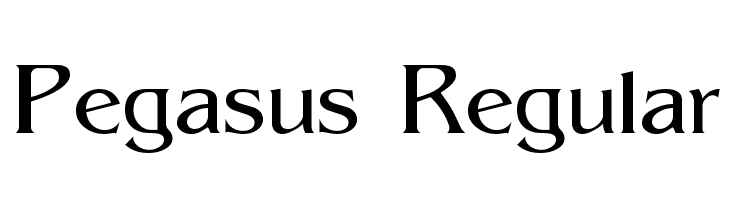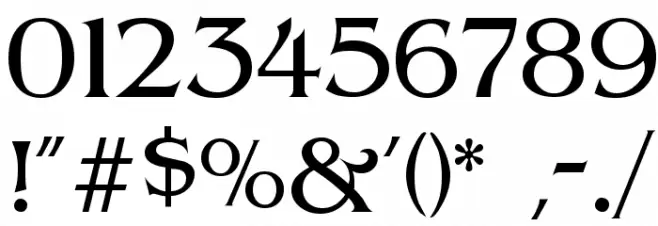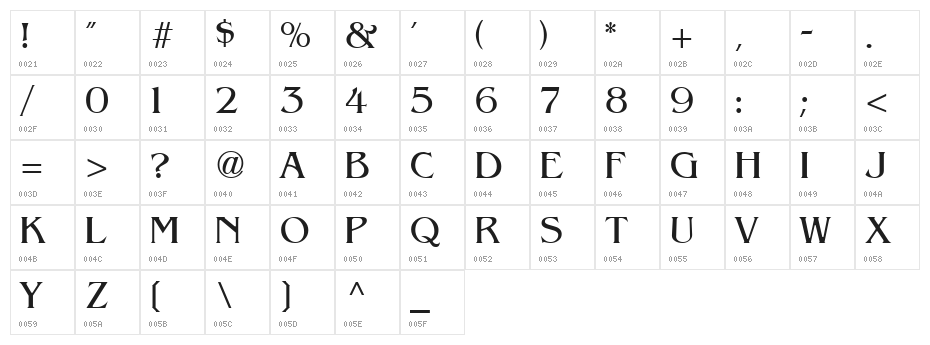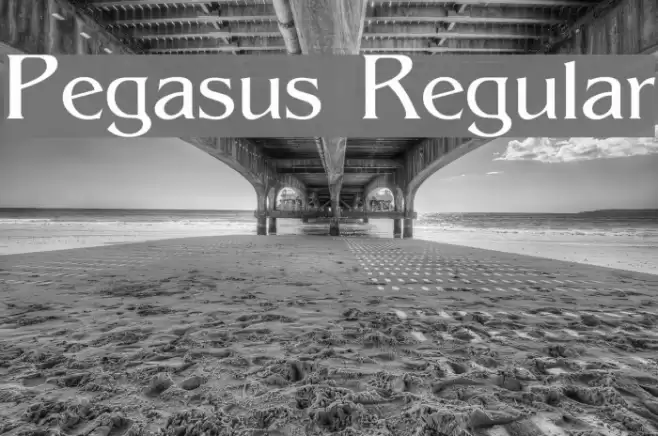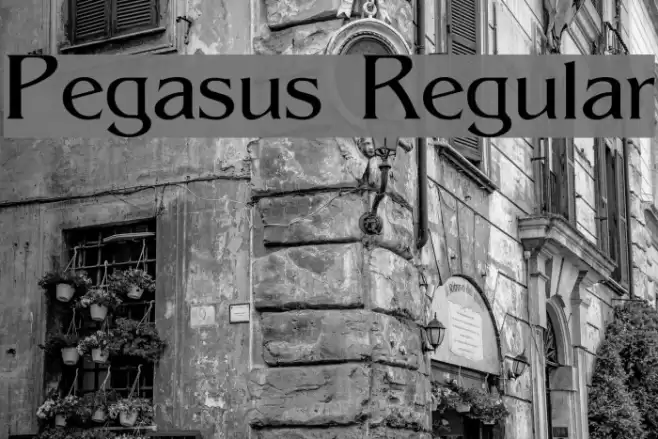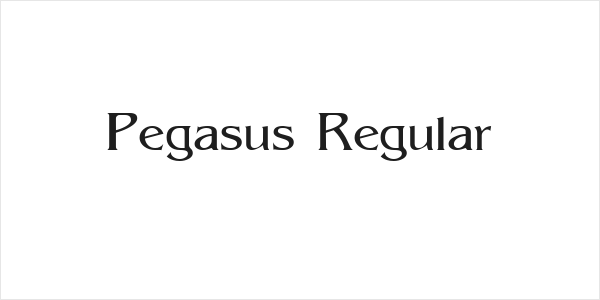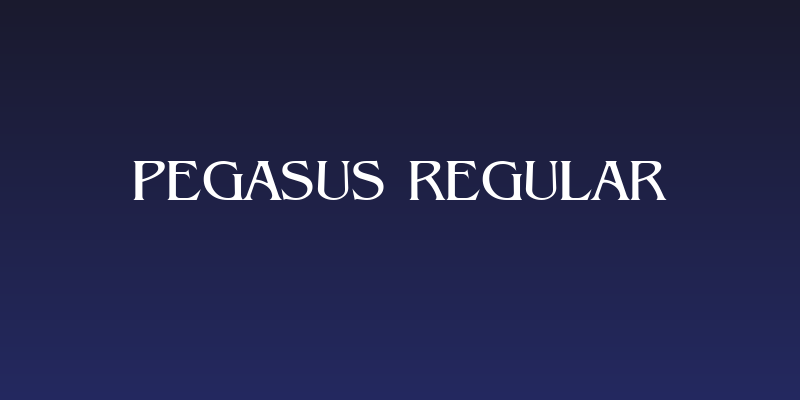
Pegasus Regular Font
Pegasus Regular Description
This font features a classic serif design with elegant and refined strokes. The uppercase letters are distinguished by their sharp serifs and balanced proportions, giving a sense of tradition and formality. The lowercase characters maintain a consistent style, with smooth curves and a slightly condensed appearance. Numbers are clear and legible, with a uniform height that complements the overall aesthetic. Special characters are thoughtfully designed, maintaining the font's cohesive look. The font's timeless appeal makes it suitable for a variety of applications.